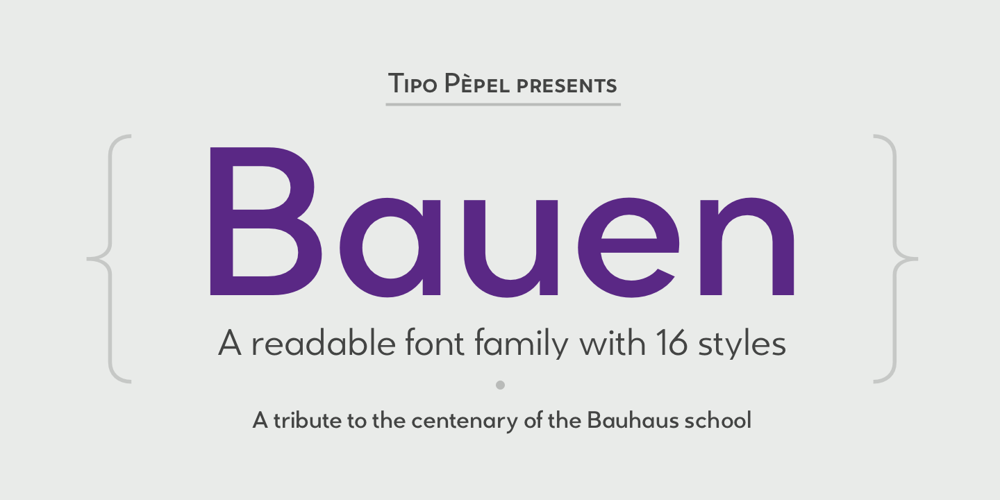
Bauen Font Family was designed by Josep Patau Bellart and published by Tipo Pèpel. Bauen contains 16 styles and family package options. Bauen (worker in German) is a tribute to the Bauhaus school that has just completed its first centenary and whose ideas are still relevant. It is a geometric typeface inspired by the sans serif typefaces prevailing in those years, and whose cradle resides in the Bauhaus school. It has a wide language coverage, and a generous range of OpenType functionalities, to make it an all-rounder for our day to day, and especially for corporate use.